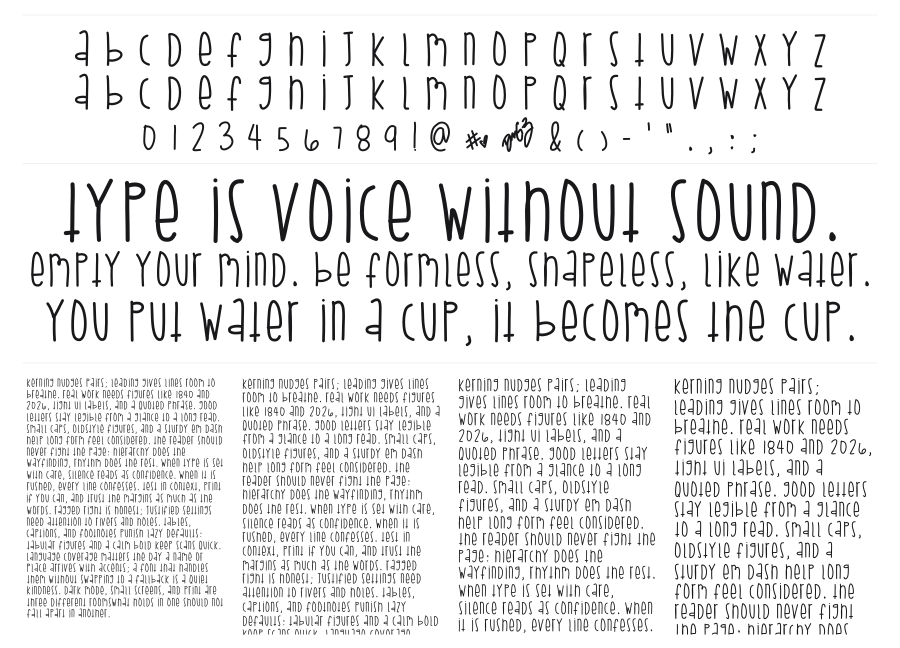
Slime Season
by Des Gomez
Slime Season is a tall, thin handwritten face from Des Gomez with condensed letterforms that feel quick and offbeat, like someone scribbling notes with a fine-tip pen in a hurry. The lightweight strokes and slightly quirky character shapes give it a playful, informal personality without trying too hard. Works best for headlines, social content, and branding where you want something casual and legible with a little weirdness baked in.